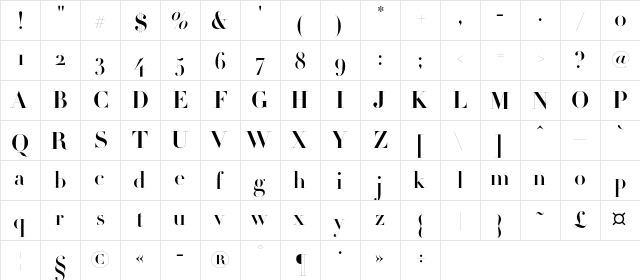
BorjomiLightC Regular
Design Context for BorjomiLightC Typeface
BorjomiLightC takes a measured approach to typography — its balanced proportions and neutral character make it a reliable workhorse for both digital and print work. Its slender proportions lend an understated elegance to any composition.